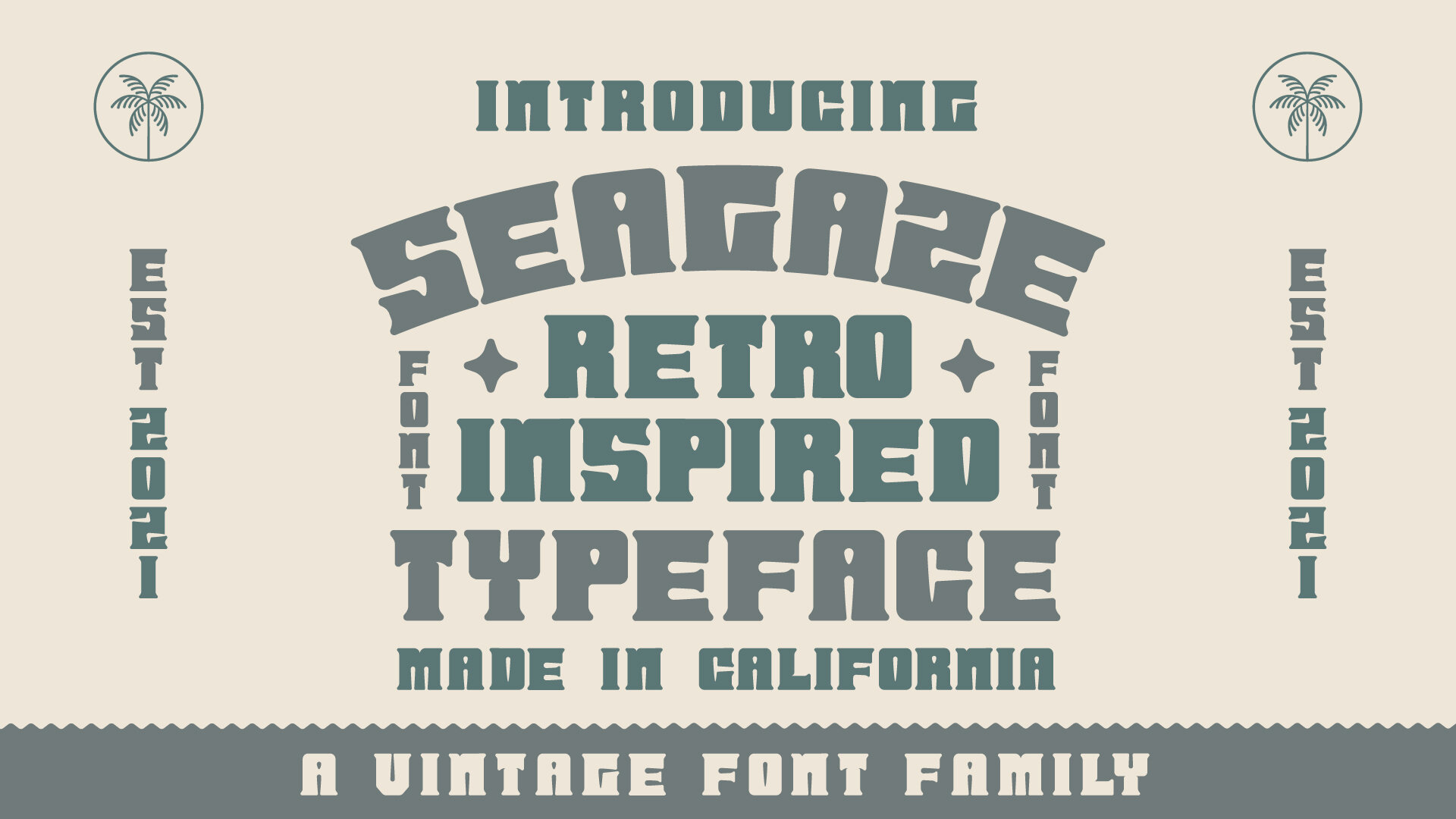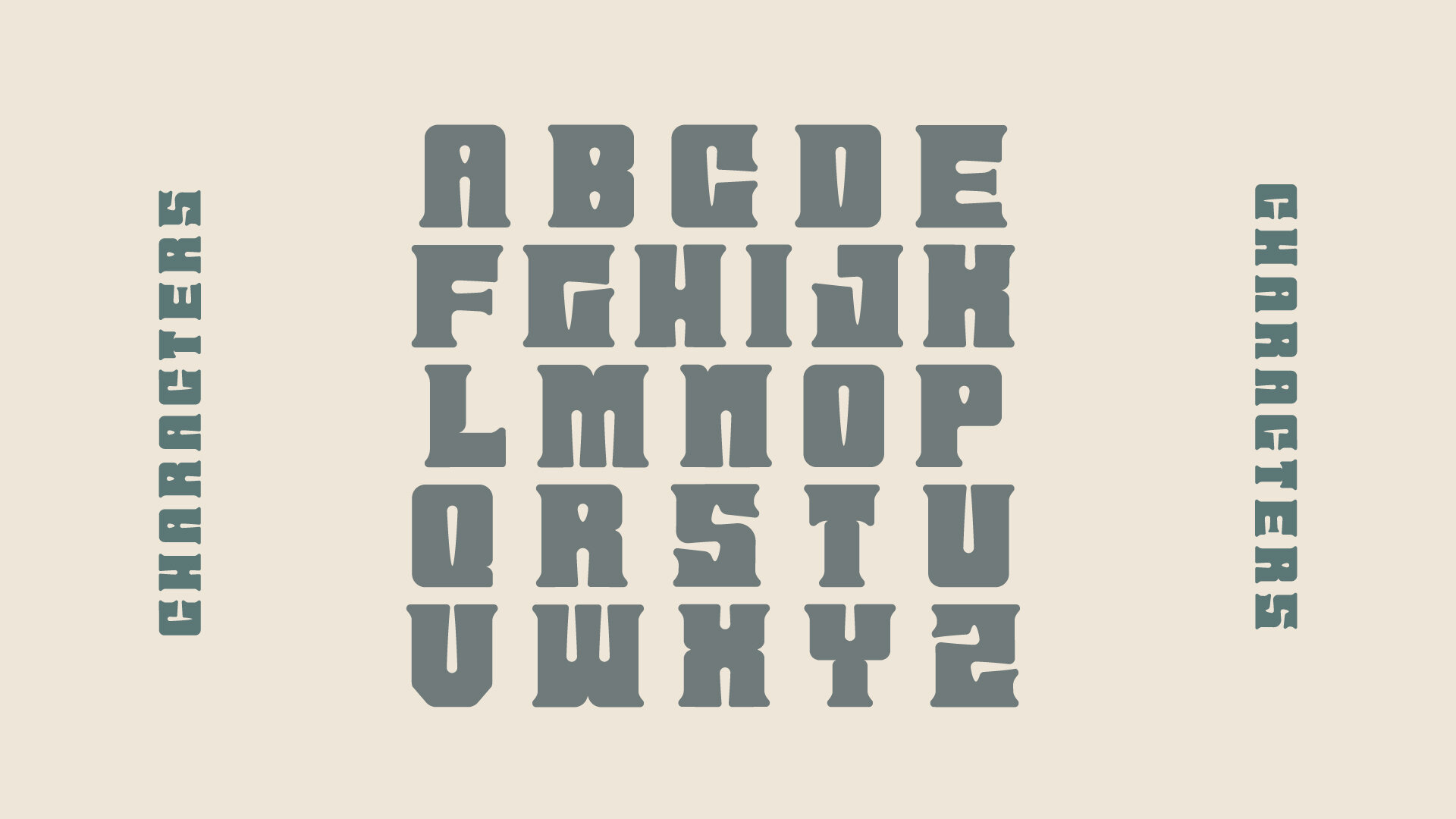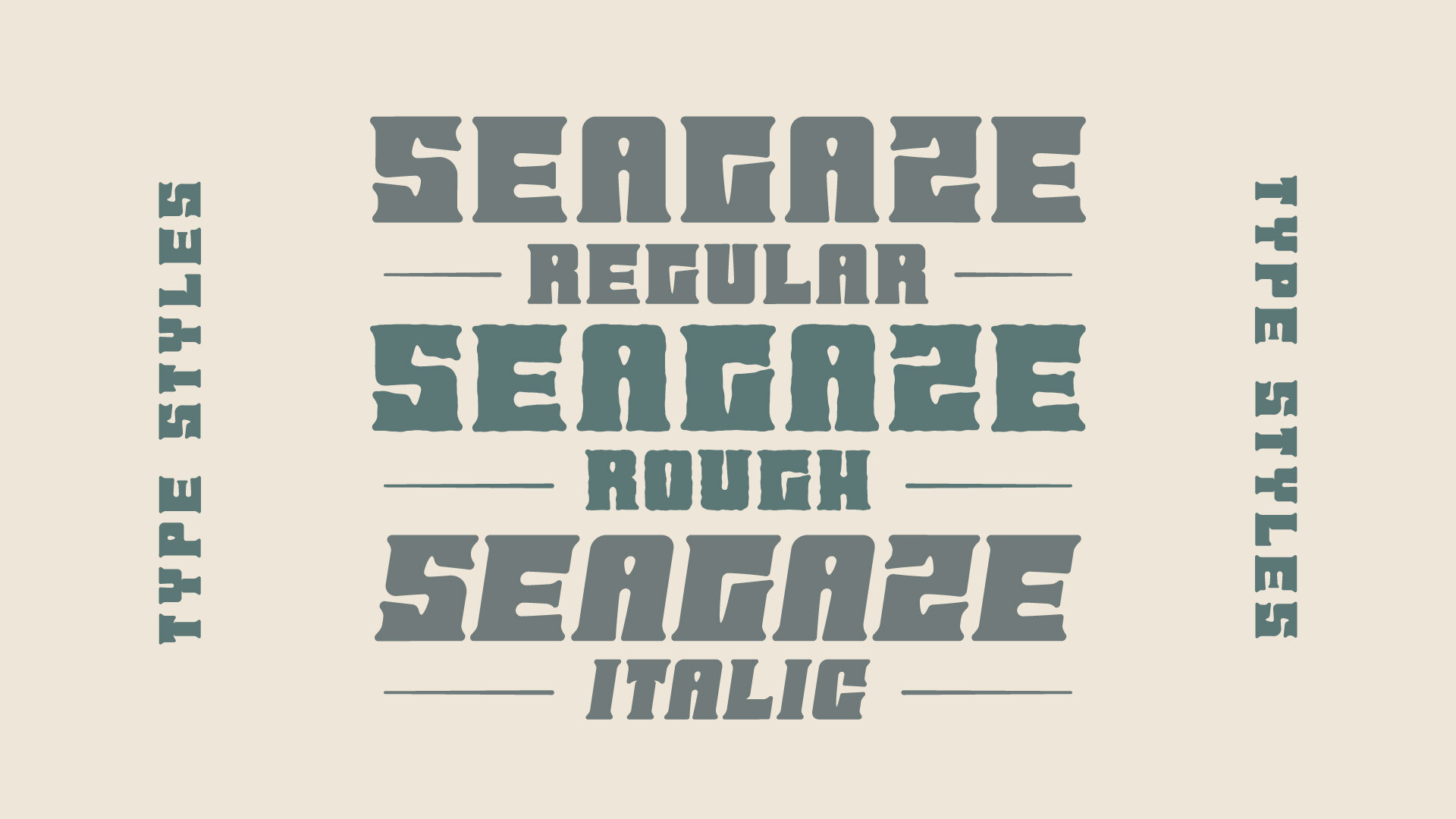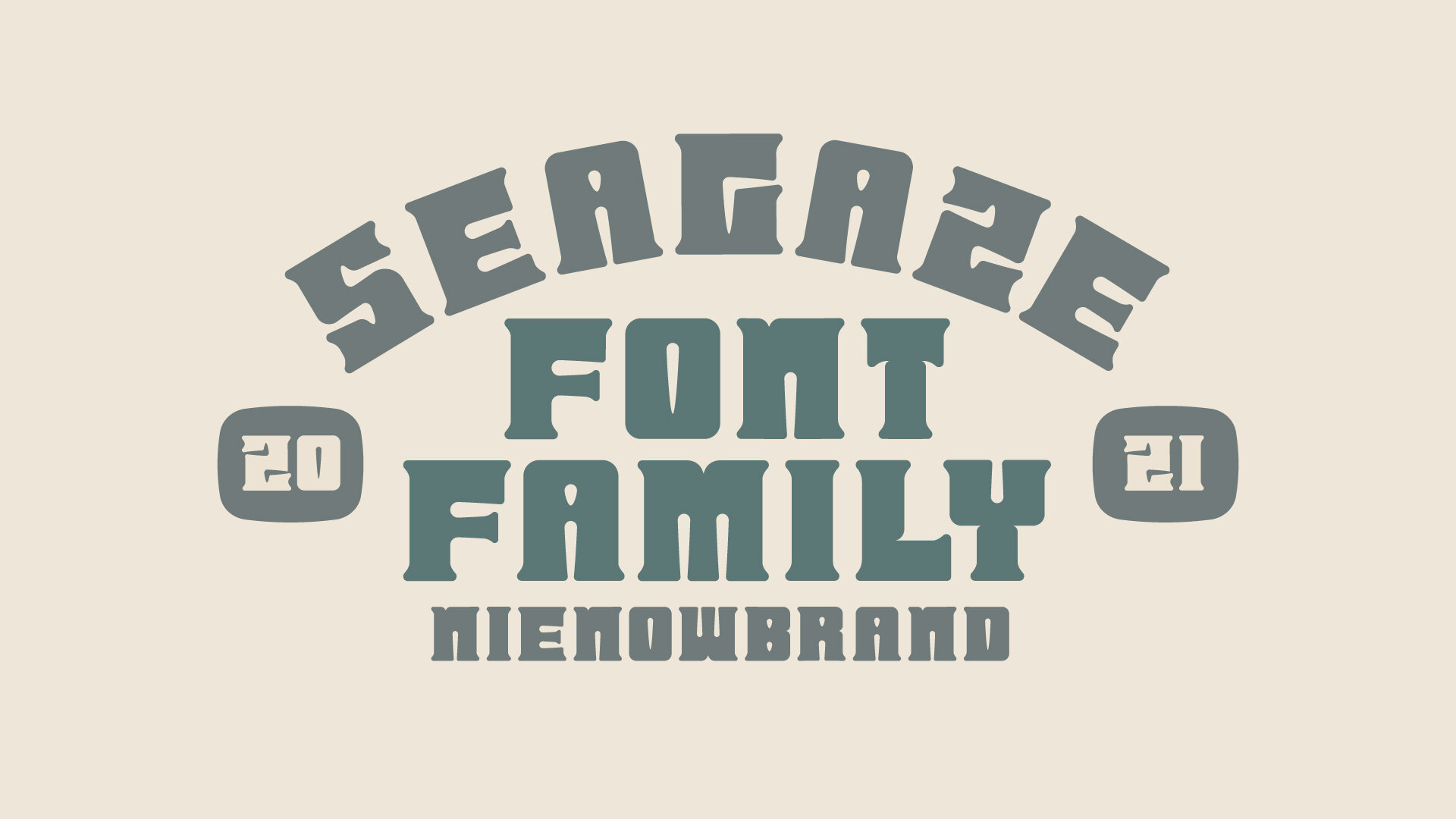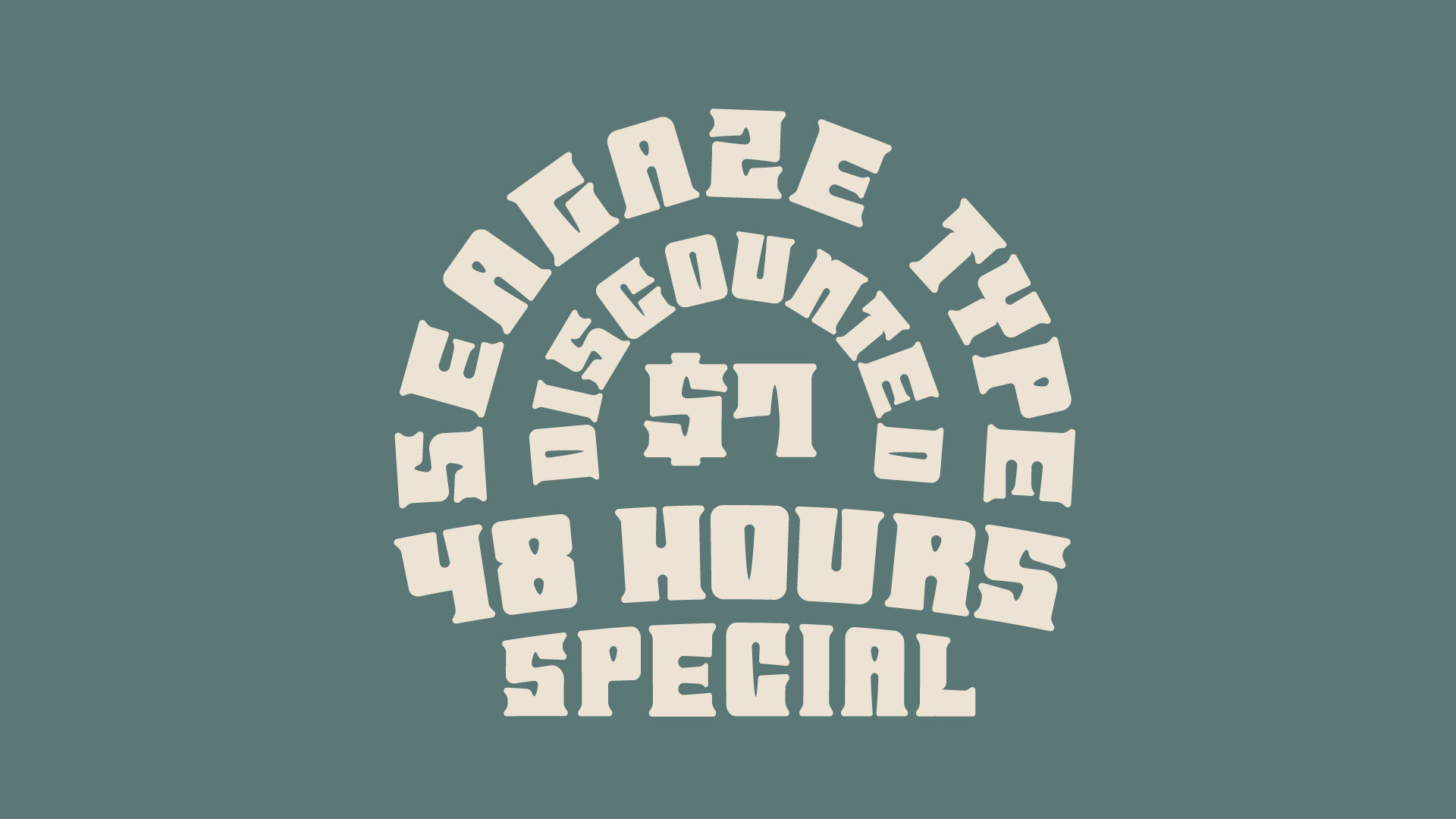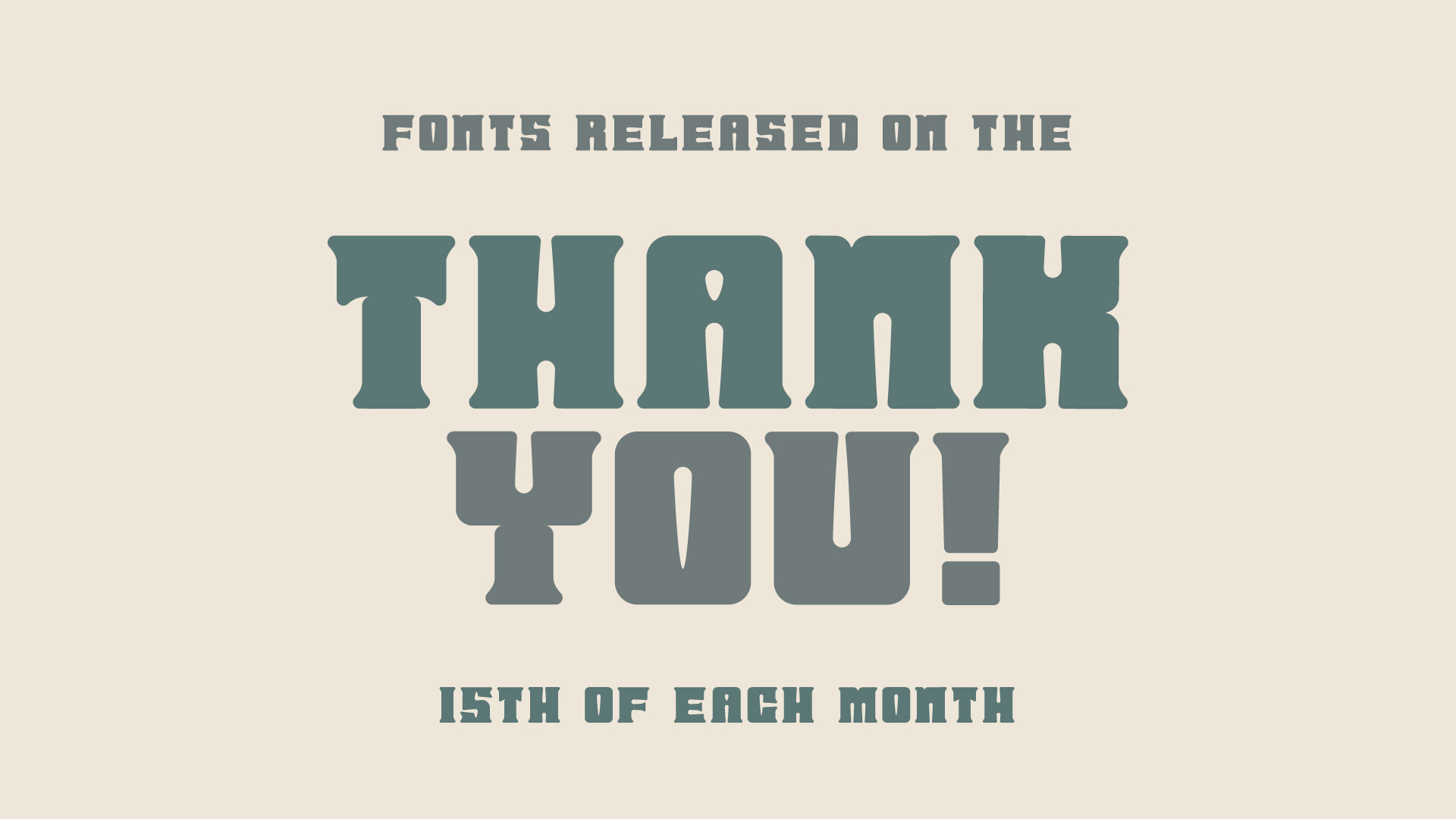
Seagaze Typeface
The Seagaze Typeface is a THICC one! Seagaze features big and bold characters with subtle spurs giving it a modern western feel. Including a full set of characters and punctuation, Seagaze comes in 3 type styles: Regular, Rough, and Italic.